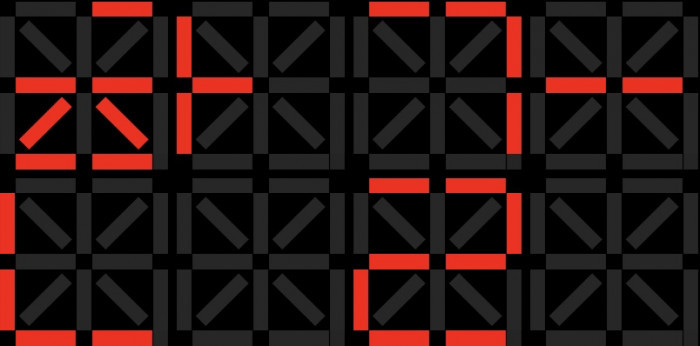
Since there does not exist a way to cleanly display diacritics, this font also simulates the bottom of one segment display and the top of another, allowing for accénted characters.
As with most segment display fonts, the uppercase letters look better.
I feel as some video games also did that with diacritics to save space for tilesets, especially Japanese, which has some less than 50 characters each for Hiragana and Katakana, plus punctuation.
Using two more tiles for (han)dakuten would save a lot of space, but the characters had to be either stacked on top of, or placed adjancent to one another…
Lowercase Greek coming next!
这是为那些懂中文的人准备的。这个网站 https://3type.cn/3typezine/typebites/05.html 上有很多十六段显示汉字的示例。中文不是我的母语,所以我很难读懂分段显示并将它们映射到正确的字符。如果您能读懂这些示例,请对字符的未遮挡版本进行评论。
이 글꼴은 자모는 지원하지만 음절은 지원하지 않기 때문에 한국어를 부분적으로만 지원합니다. 아래 Python 코드를 사용하면 음절을 적절한 형식의 자모로 변환할 수 있습니다. 입력란에 입력하고 출력 결과를 복사하세요.